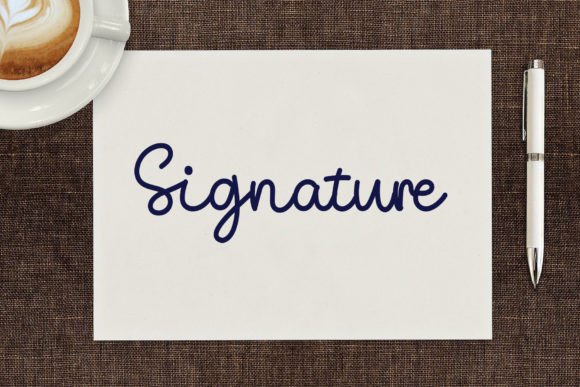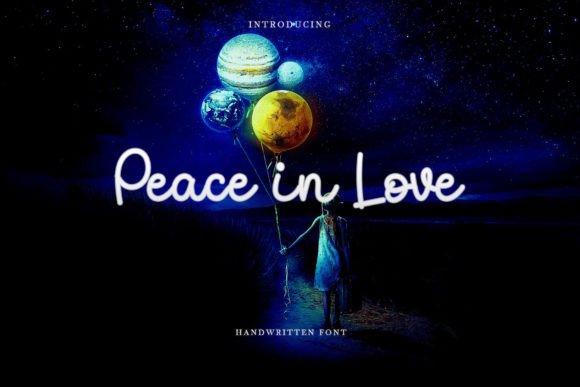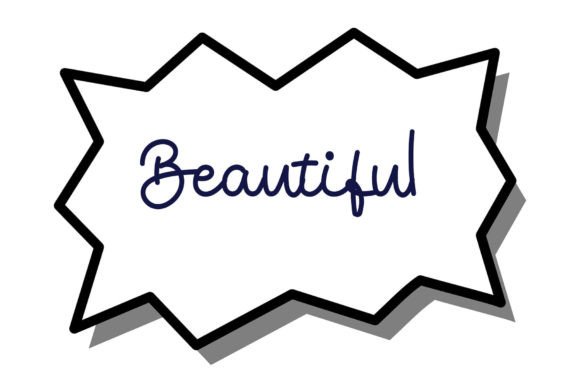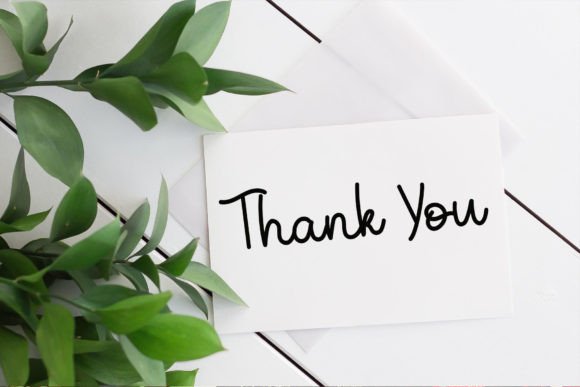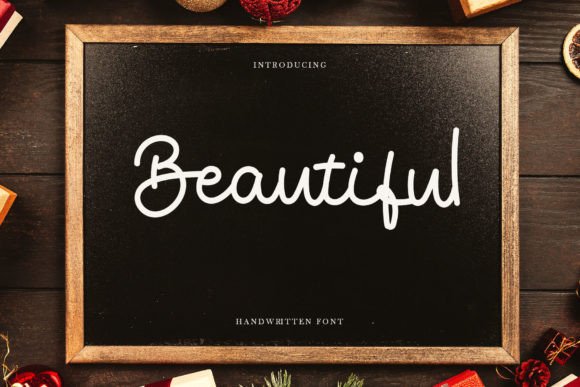
The Beauty of Typography: Introducing the Beautiful Font
When it comes to creating stunning visual designs, typography plays a crucial role. The right font can elevate your project from ordinary to extraordinary, making it more engaging and memorable for your audience. In this article, we’ll introduce you to the Beautiful Font, a delicate, elegant, and flowing handwritten font that’s sure to bring your creative ideas to life.
What Makes the Beautiful Font So Special?
The Beautiful Font is a unique and versatile typeface that’s designed to add a touch of sophistication and elegance to any design project. Its beautiful and well-balanced characters make it an excellent choice for a wide range of applications, from creative branding and advertising to crafting and DIY projects.
One of the standout features of the Beautiful Font is its delicate and flowing handwritten style. The font’s elegant strokes and curves create a sense of movement and fluidity, making it perfect for designs that require a touch of whimsy and personality.
Key Characteristics of the Beautiful Font
- Delicate and elegant design: The Beautiful Font features a sophisticated and refined design that’s perfect for creating stunning visual effects.
- Flowing handwritten style: The font’s handwritten style gives it a unique and personal touch, making it ideal for designs that require a bit of character.
- Well-balanced characters: The font’s characters are carefully crafted to ensure that they’re well-balanced and visually appealing, making it easy to read and understand.
- Versatile and adaptable: The Beautiful Font is highly versatile and can be used in a wide range of design projects, from creative branding and advertising to crafting and DIY projects.
How to Use the Beautiful Font in Your Designs
The Beautiful Font is an incredibly versatile typeface that can be used in a variety of design projects. Here are a few ideas to get you started:
- Branding and advertising: Use the Beautiful Font to create stunning brand identities, logos, and advertising materials that showcase your brand’s personality and style.
- Crafting and DIY projects: Add a touch of elegance and sophistication to your crafting and DIY projects, such as handmade cards, gift tags, and scrapbooking pages.
- Digital designs: Use the Beautiful Font in your digital designs, such as social media graphics, blog posts, and website headers, to add a touch of personality and whimsy.
Tips for Getting the Most Out of the Beautiful Font
To get the most out of the Beautiful Font, here are a few tips to keep in mind:
- Experiment with different sizes and colors: Don’t be afraid to experiment with different sizes and colors to find the perfect combination for your design.
- Pair it with other fonts: The Beautiful Font pairs well with other fonts, so don’t be afraid to try pairing it with different typefaces to create a unique and interesting effect.
- Use it to add a personal touch: The Beautiful Font is perfect for adding a personal touch to your designs, so don’t be afraid to use it to add a bit of character and personality.
In conclusion, the Beautiful Font is a stunning and versatile typeface that’s perfect for designers and crafters looking to add a touch of elegance and sophistication to their designs. With its delicate and flowing handwritten style, well-balanced characters, and adaptable design, it’s an excellent choice for a wide range of applications. So why not give it a try and see how it can bring your creative ideas to life?